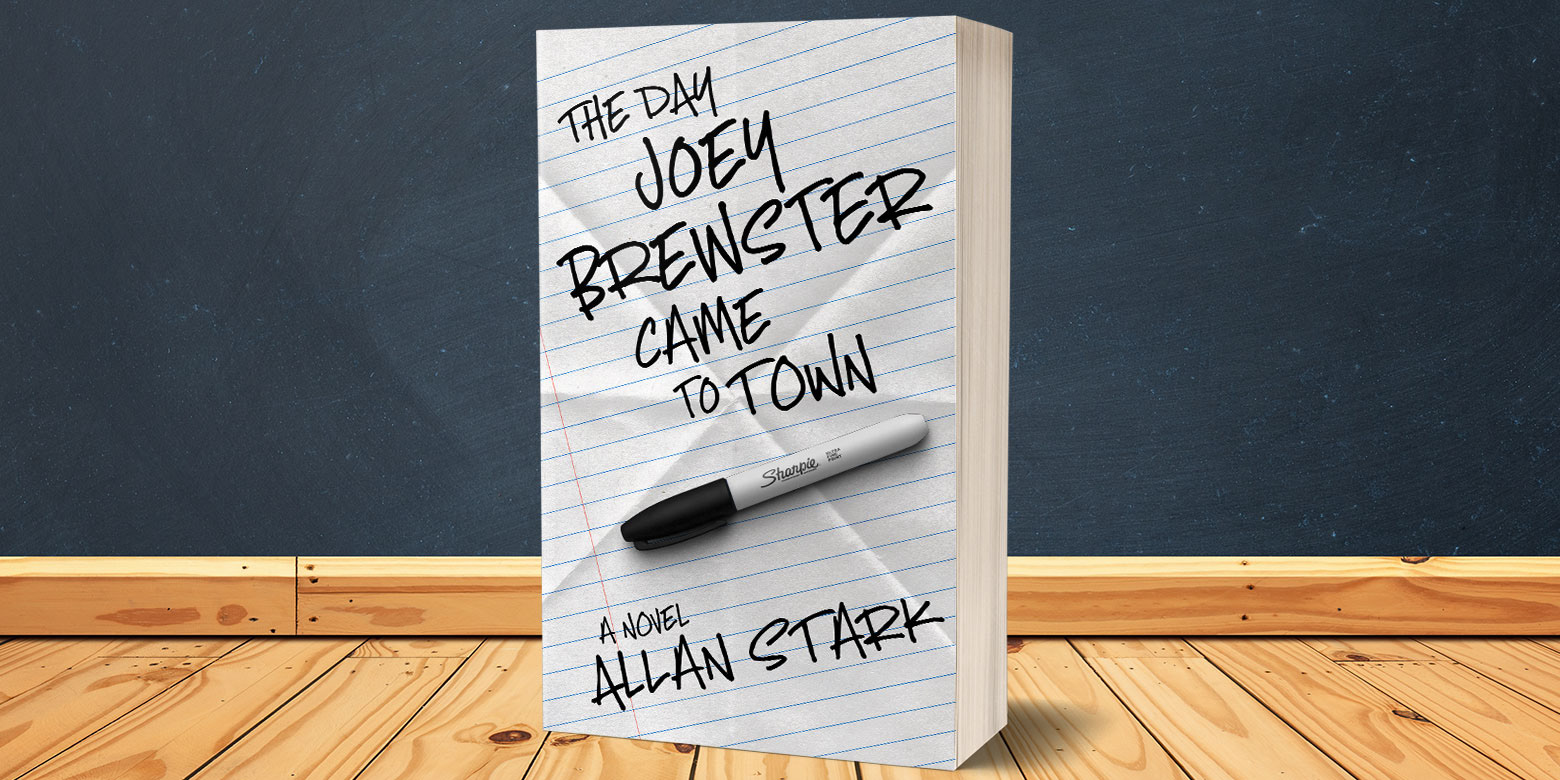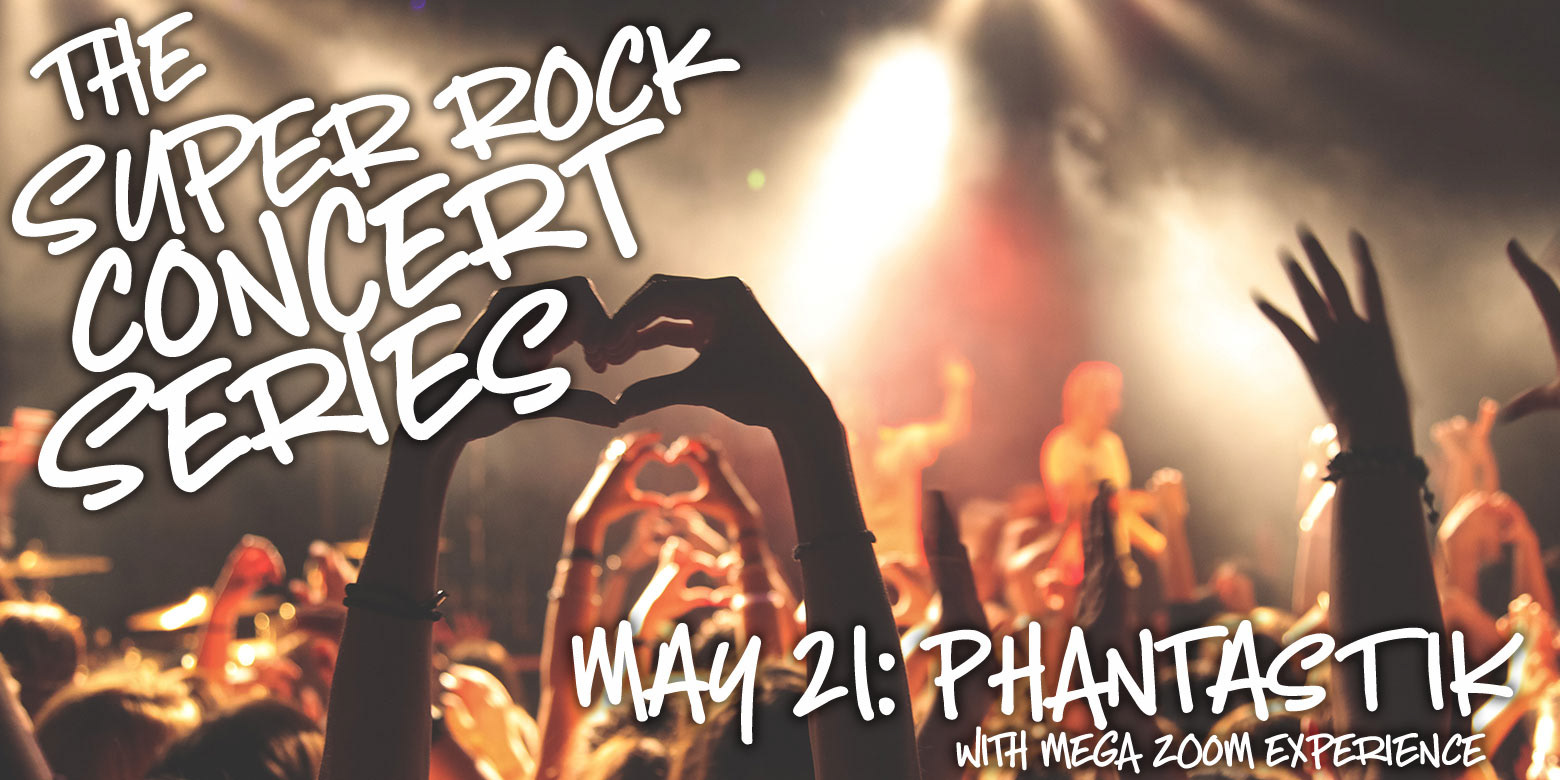
I’ve had many requests for more “guy” fonts: less swirly, heavier lines, with a splash of a backward tilt. As a result, here’s Crispin! It’s based on the real handwriting of a real guy, but it’s great fun for all ages and genders!
Crispin is a double-caps font: one set of capital letters mapped to the uppercase, and a second set of caps mapped to the lowercase. It lets you put some variety into double-letter words, giving them a real hand-lettered look. The spacing is tight and the strokes are thick, all to make your project feel like it was written with a heavy marker. And the strokes are cleaned up, so it’s great for crafting!
Because I’m all about options, I’m also including a bonus font made from the letters as they were originally imported: a bit lighter, a bit rougher, but still spaced and kerned and ready to use!
As with all of my fonts, these come with a ton of punctuation, as well as over 200 accented characters for language support!